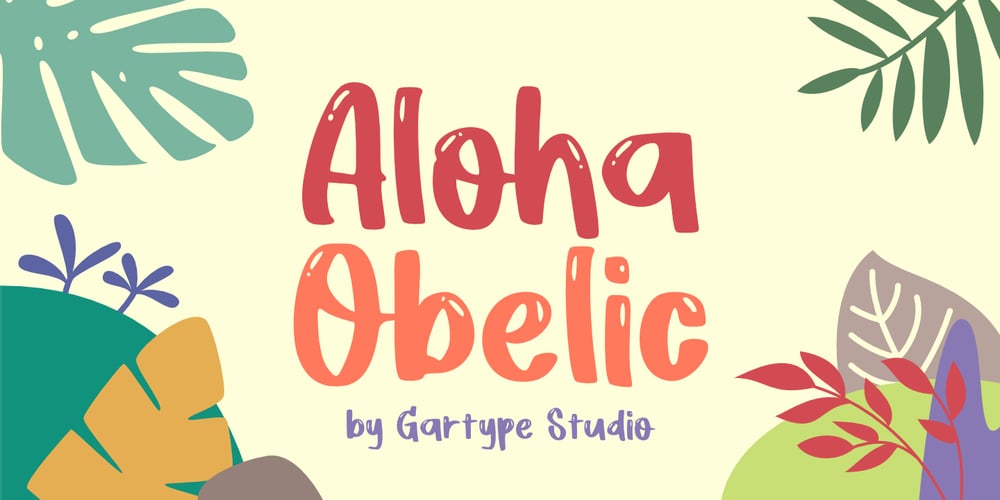
Aloha Obelic GT Font Family was designed by Gumilang Anggara Ruslan and published by Gartype Studio. Aloha Obelic GT contains 2 styles and family package options. Inspired by a bold, script, chill, and handwritten style character, we present to you Aloha Obelic, a Display font with bold and Script characters that was comes with alternates and multilingual glyphs to help people around world with that unique accent.Aloha Obelic is very suitable for T-Shirt Designs, Birthday invitation, Product packaging, YouTube Thumbnail, Posters, Advertising Projects, Logos and more.